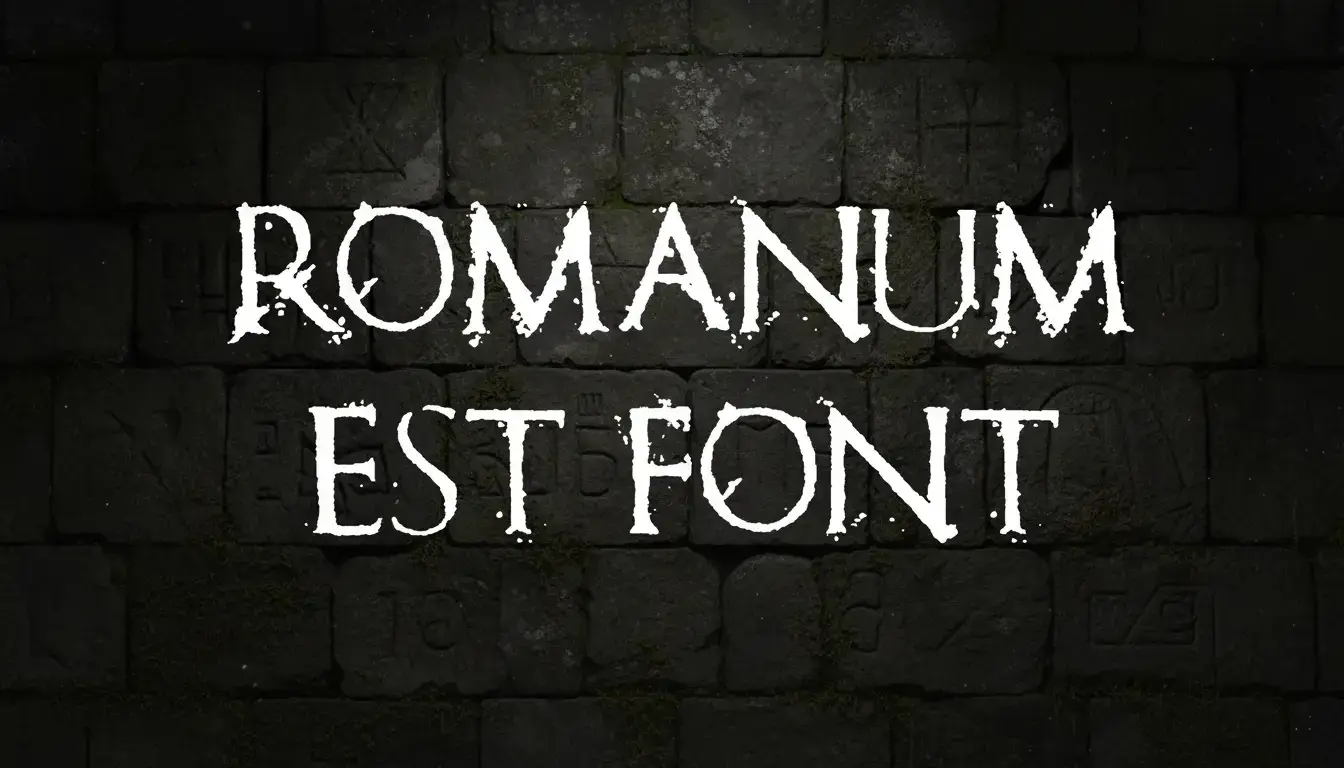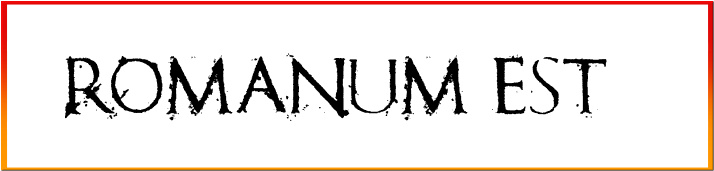
ROMANUM EST FONT
ROMANUM EST
What You Can Type With ROMANUM EST
With complete upper and lowercase letters and all ten digits, ROMANUM EST is ready for real wording, not just a single headline. Everyday marks like &, !, ? and @ are there too. Thanks to its accented letters, it also works for Spanish, French, German, Portuguese and Italian, not just English.
Where ROMANUM EST Works Best
Designers usually reach for fonts like ROMANUM EST when they're making posters, logos and eye-catching headlines. Use it for one standout word or headline and let simpler fonts handle the rest.
Does ROMANUM EST support accented letters?
Yes. ROMANUM EST includes the accented letters needed for Spanish, French, German, Portuguese and Italian, so it works for more than just English.